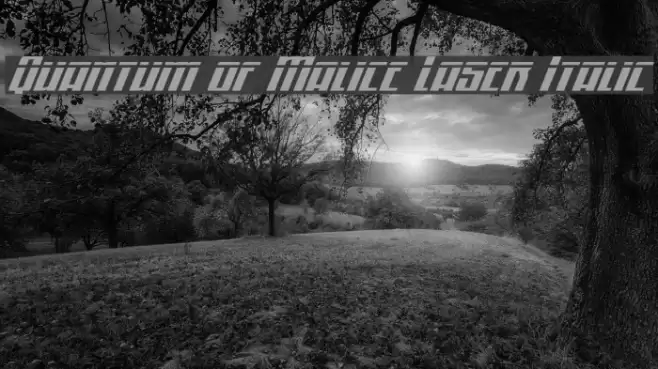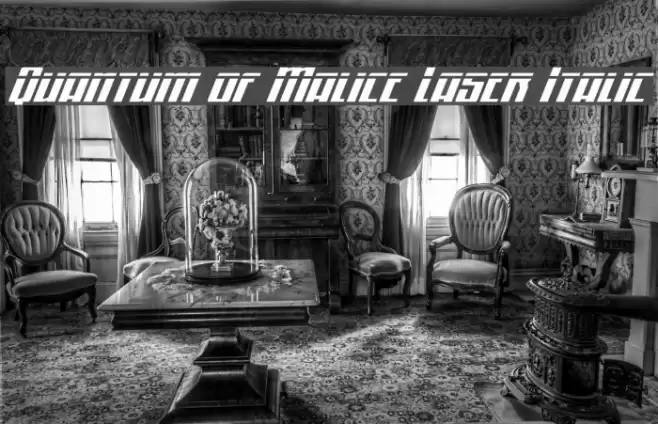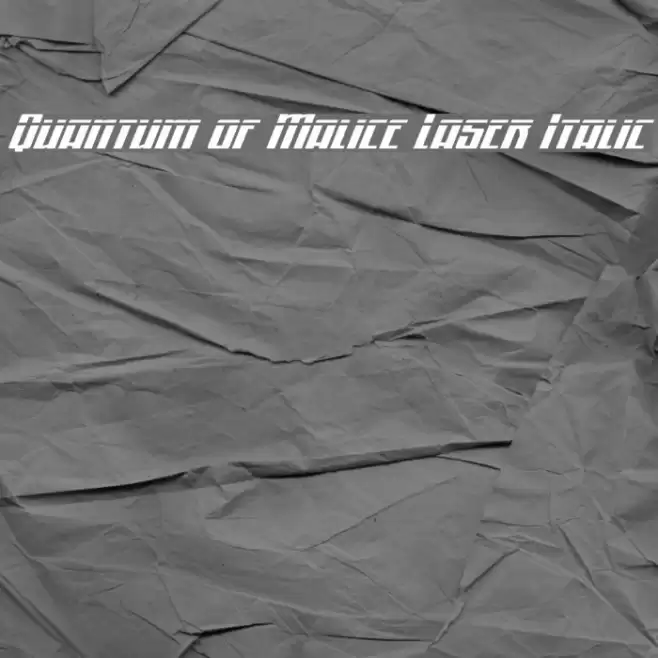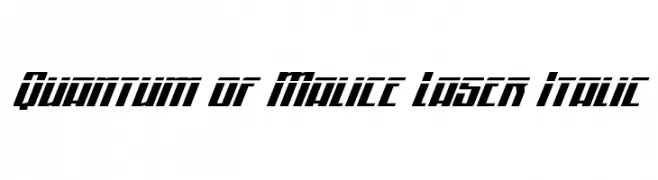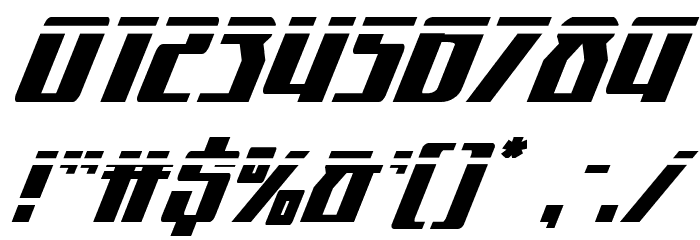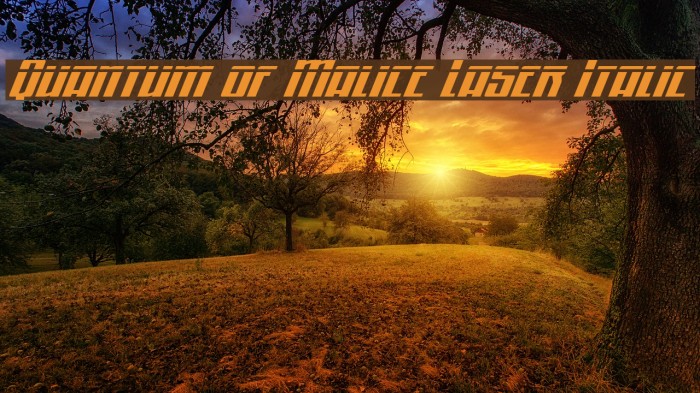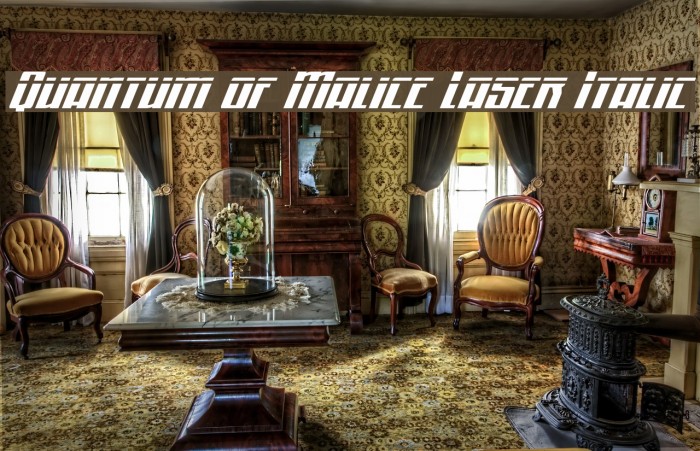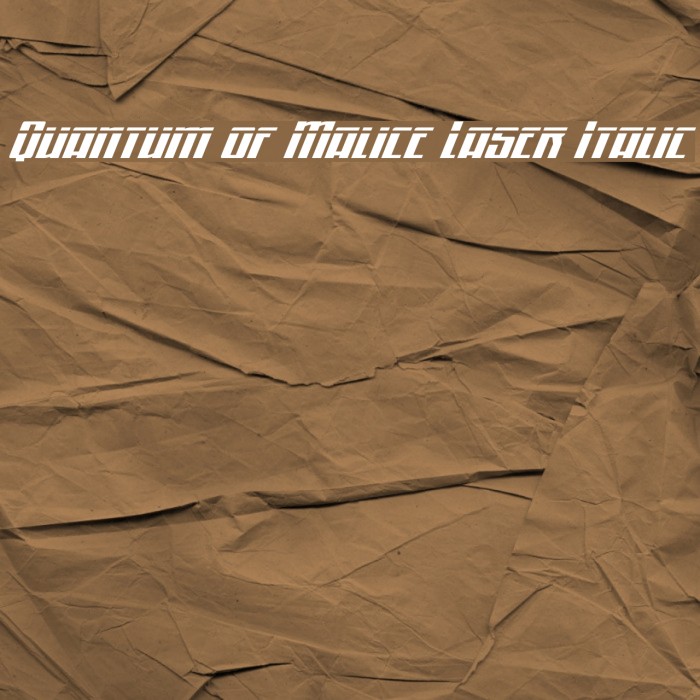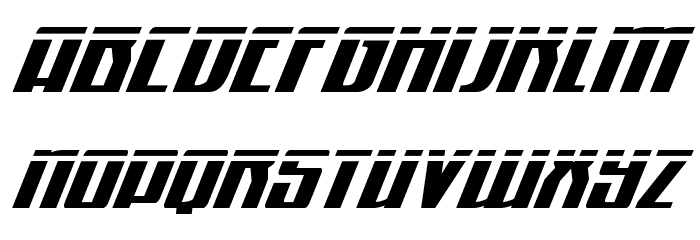
Quantum of Malice Laser Italic Font
Quantum of Malice Laser Italic Description
This font features a bold, futuristic design with sharp, angular lines and a distinct italic slant. The characters are tightly spaced, creating a compact and cohesive look. The uppercase and lowercase letters maintain a consistent style, with each character exhibiting a dynamic, forward-leaning posture. The numerals and special characters are equally bold and stylized, fitting seamlessly with the overall aesthetic. The high contrast in stroke thickness adds to the font's striking appearance, making it ideal for attention-grabbing designs.
A bold, futuristic italic font with sharp angles and high contrast from Uncategorized fonts.
- Proposed Projects: Ideal for sci-fi themed projects, video game titles, movie posters, and branding that requires a modern, edgy look.
- Character Spacing: Tight